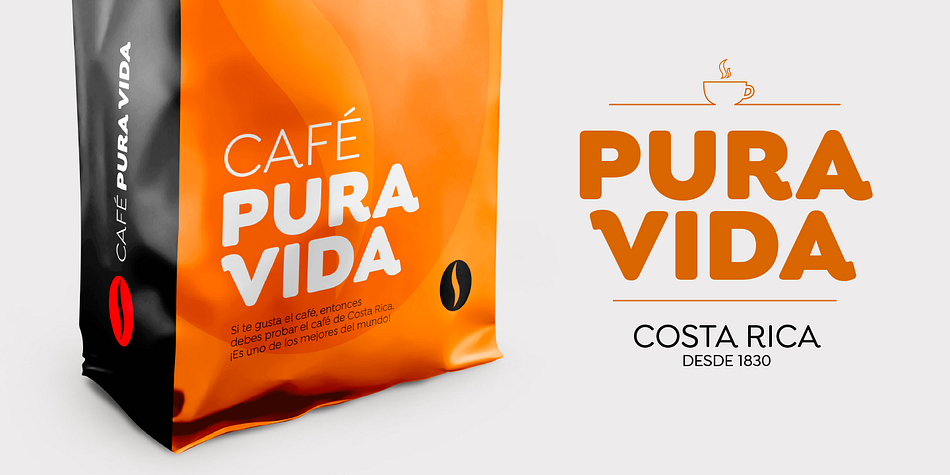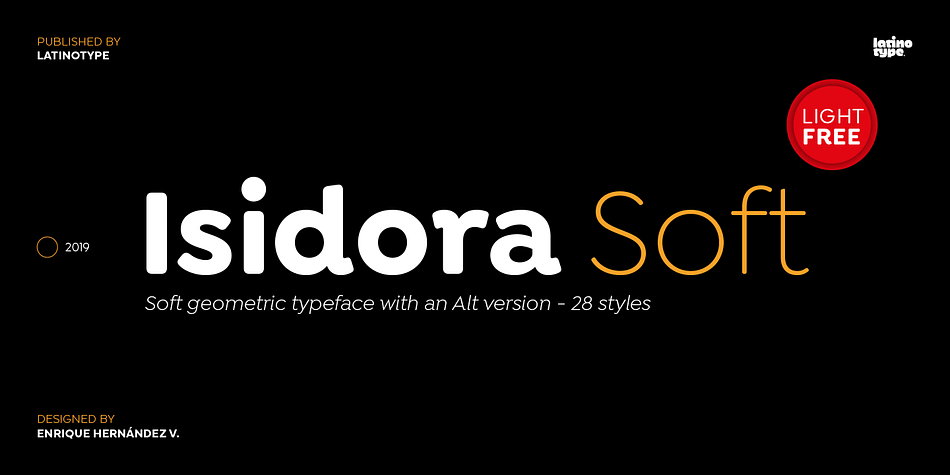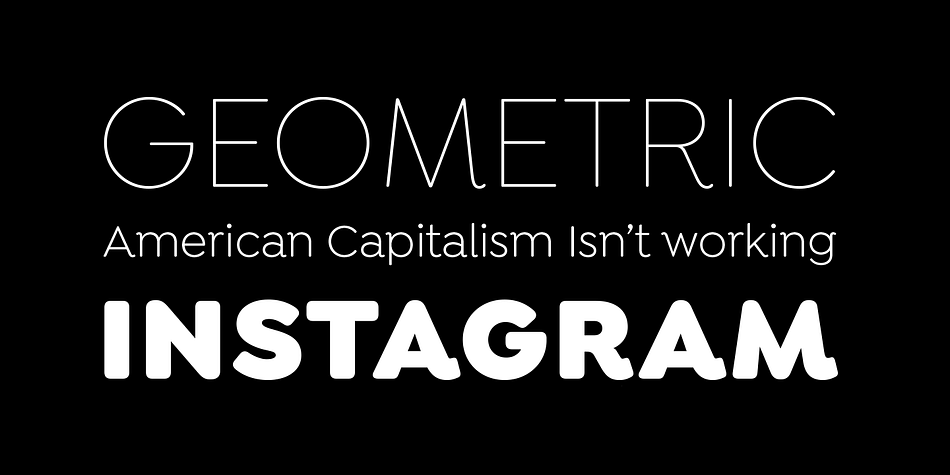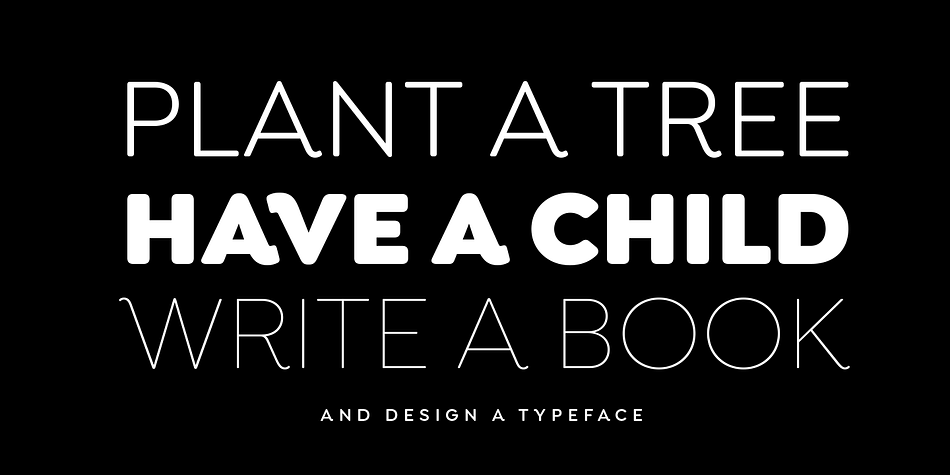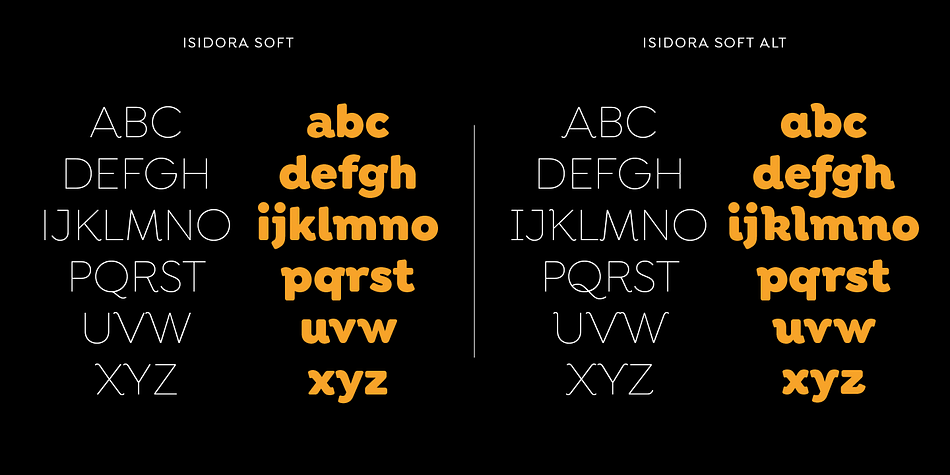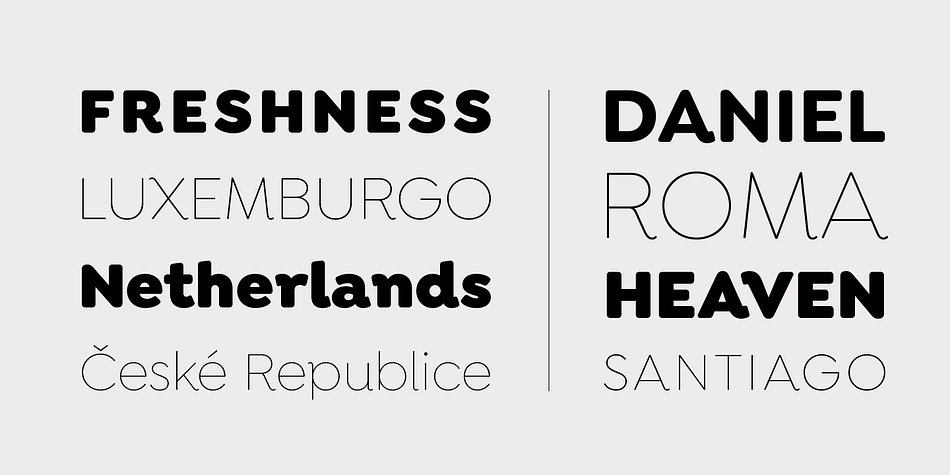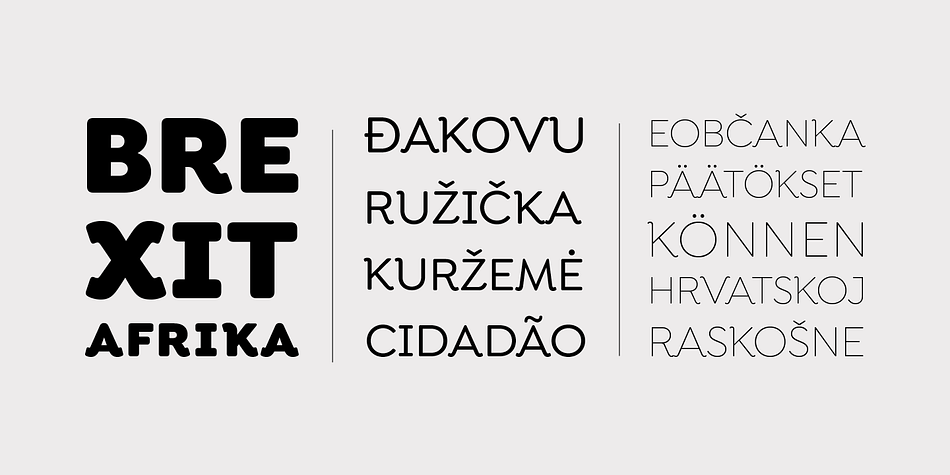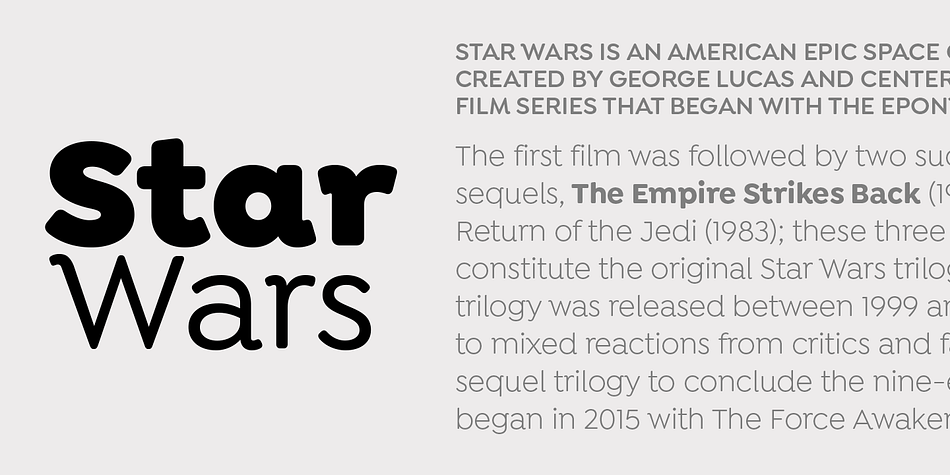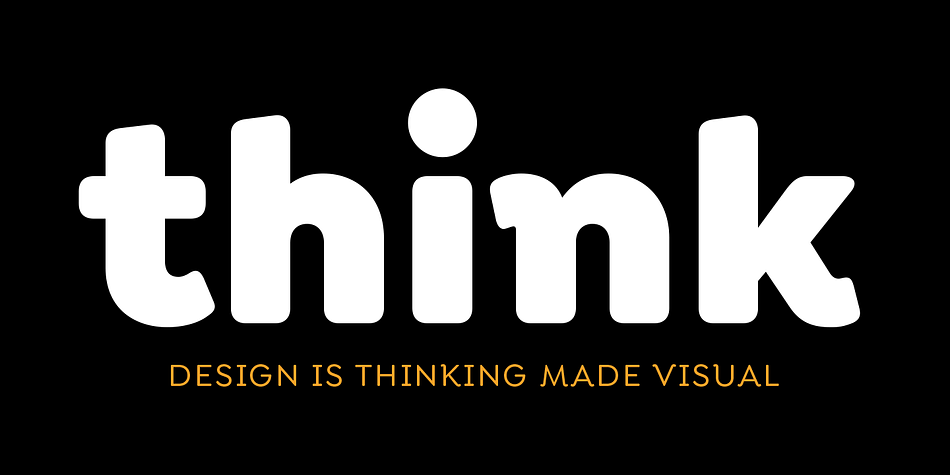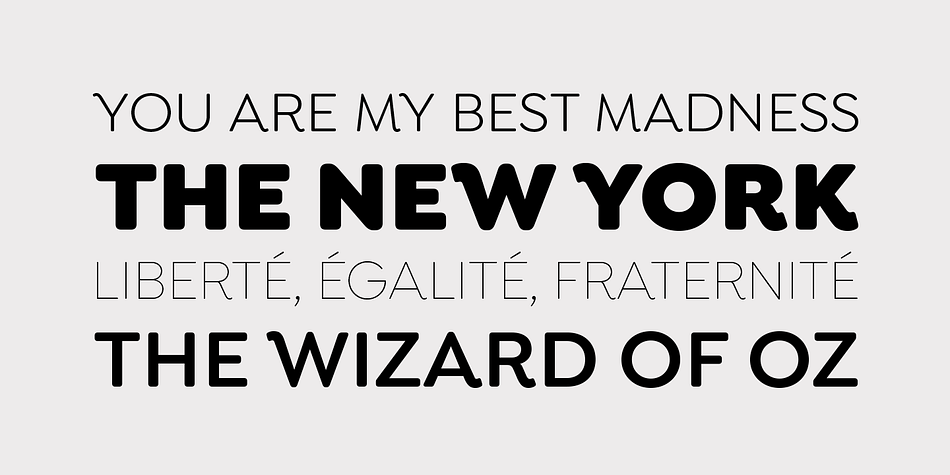
Designed by Enrique Hernandez, Isidora Soft is a sans serif font family. This typeface has twenty-eight styles and was published by Latinotype.
Isidora Soft is a new version of Isidora —a 2016 Bestseller.
Its rounded, soft terminals give it a friendly and expressive look, and its modern and contemporary style, small x-height and classic proportions make it an excellent choice for headlines, logotypes, branding, books, magazines, motion graphics, and use on web and Tv.
Isidora Soft consists of two 7-weight versions: one regular and one alternative which is more expressive and playful compared to its counterpart. Both versions include matching italics, resulting in a total of 28 styles. Isidora Soft contains a set of 452 characters that support over 200 Latin-based languages.